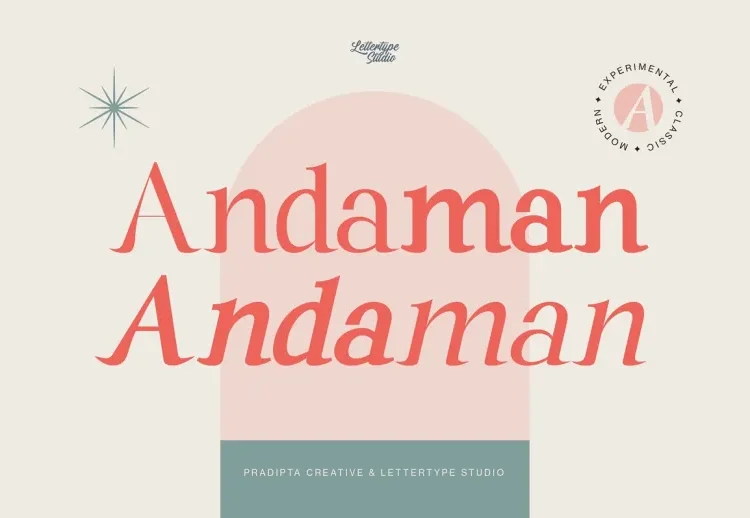
Andaman Serif Font
Andaman is a modern and innovative serif typeface designed to infuse your projects with both elegance and sophistication. This versatile font is ideal for a wide range of creative applications, making it a valuable addition to any designer’s toolkit.
• Elegant Serif Design:
• Modern and Classic: Andaman beautifully blends contemporary design with classic serif elements, making it perfect for projects that require both modern flair and timeless sophistication.
• Versatile Applications:
• Logo Design and Branding: Create striking and memorable logos and brand identities.
• Clothing and Cosmetics: Ideal for fashion and beauty industries, enhancing product packaging, labels, and promotional materials.
• Posters and Signage: Perfect for designing eye-catching posters and signs that stand out.
• Wedding Invitations: Adds a touch of elegance and class to wedding stationery and other formal invitations.
• Sophistication Meets Innovation:
• Dual Qualities: Andaman brings a unique combination of traditional serif grace with a modern twist, making it suitable for a wide array of design styles.